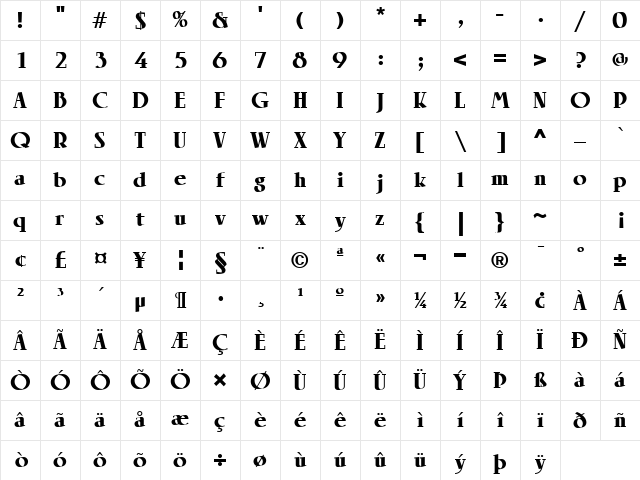
Complete LTRowena Medium Black glyph index. Displaying only characters natively supported by LTRowena Medium Black font.
LTRowena Medium is a composed and adaptable typeface that performs quietly and consistently across a wide range of design contexts.